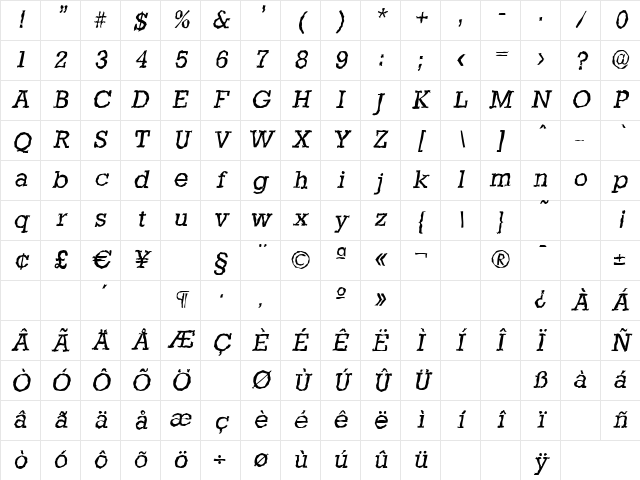
StaffordRandom Italic
Complete StaffordRandom Italic glyph index. Displaying only characters natively supported by StaffordRandom Italic font.
Design Context for StaffordRandom
StaffordRandom is a composed and adaptable typeface that performs quietly and consistently across a wide range of design contexts. The slanted form adds forward momentum and visual energy.
Pro Tip: Use StaffordRandom for emphasis, pull quotes, and subheadings where its slanted energy can add rhythm to the layout.